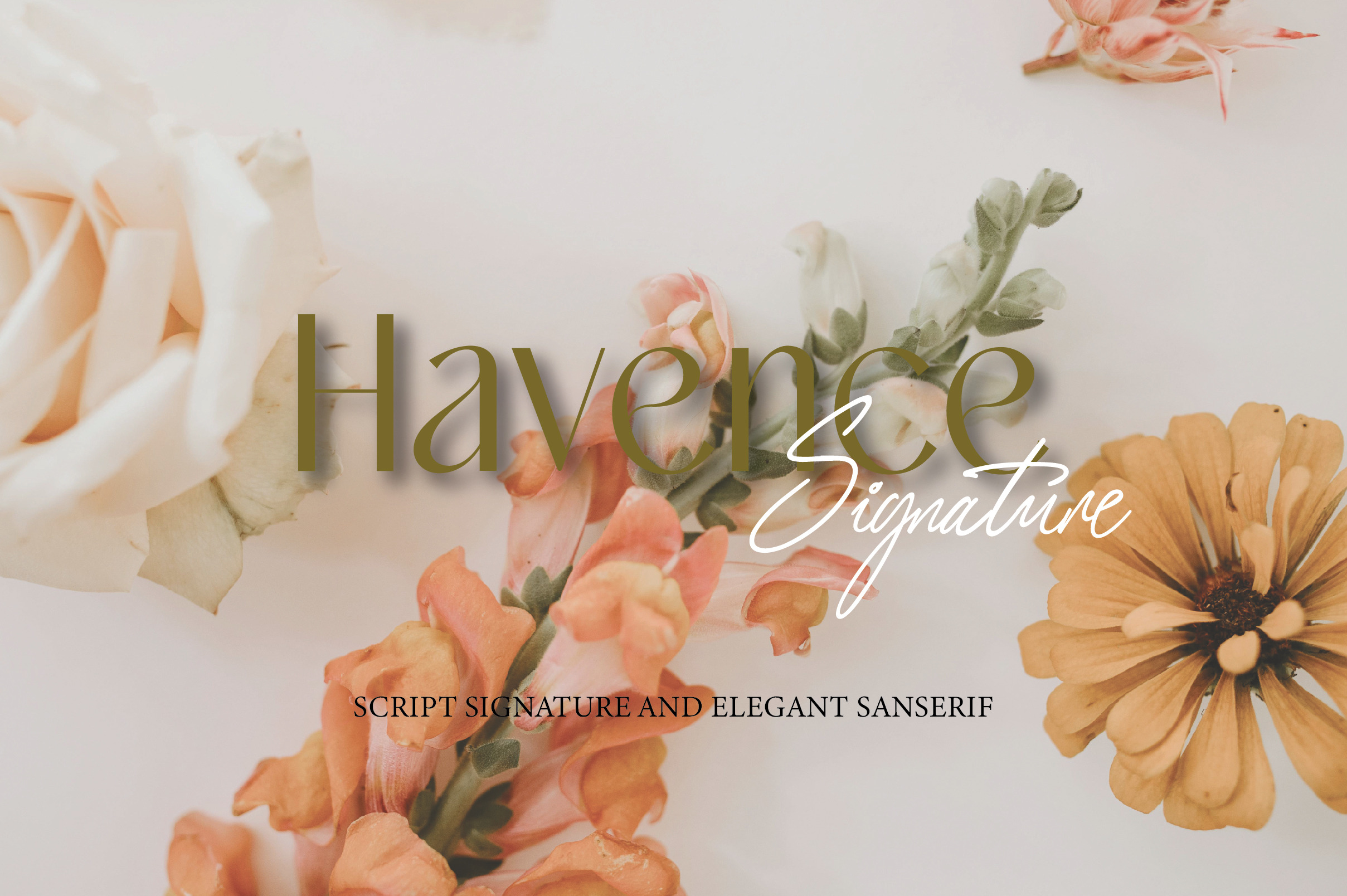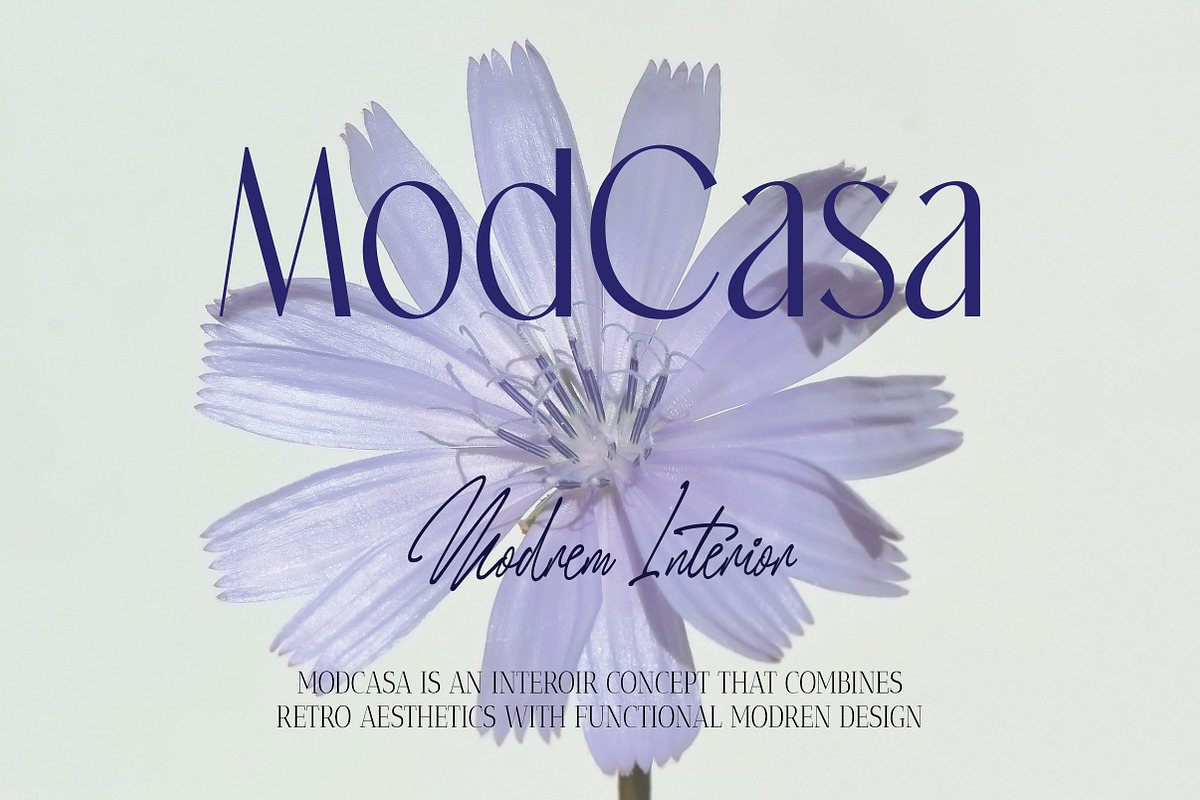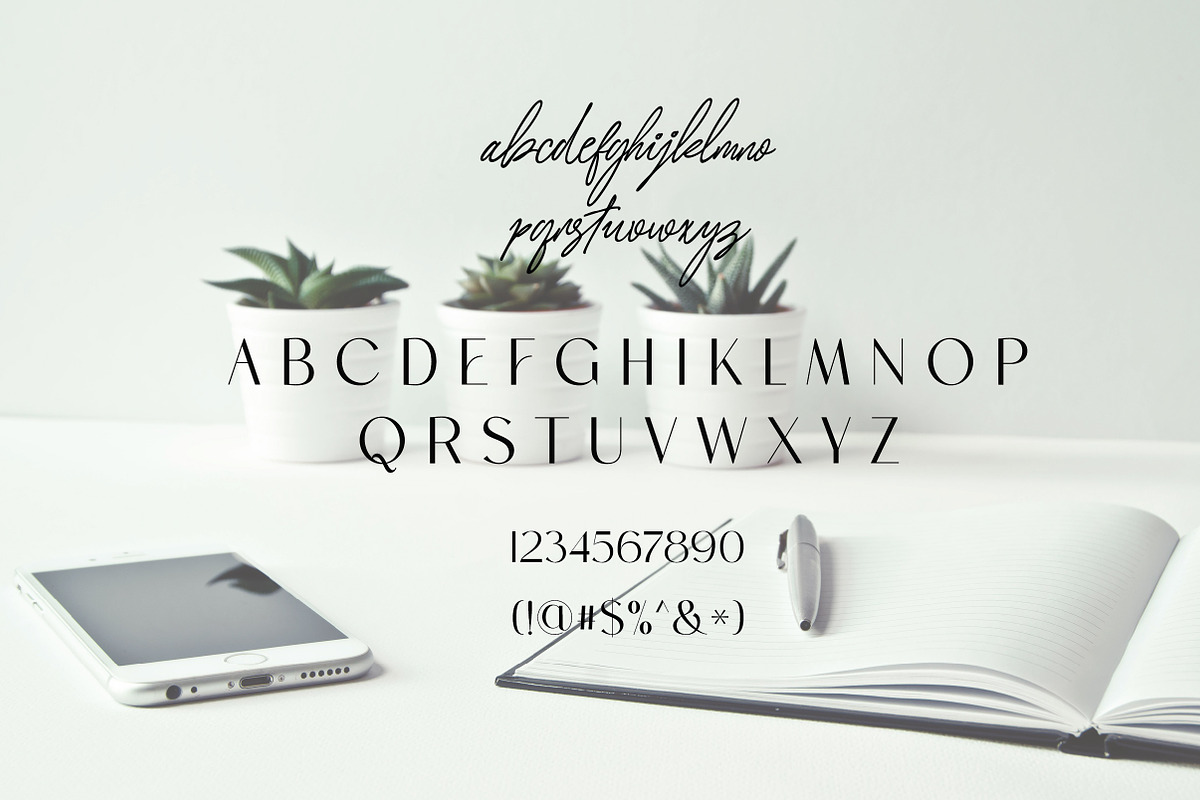
Havence | Elegant & Branded Font
Havence is a beautifully refined serif font designed to bring elegance and charm to your creative work. With its delicate Light weight, clean lines, and subtle sophistication, Havence is ideal for high-end branding, wedding invitations, fashion editorials, social media graphics, and upscale packaging.
Its timeless aesthetic makes it a versatile choice for both headlines and body text, offering a balance of modern simplicity and classic beauty across both print and digital projects.
Havence is the perfect font for designers who seek refined elegance and minimalist appeal in every project.